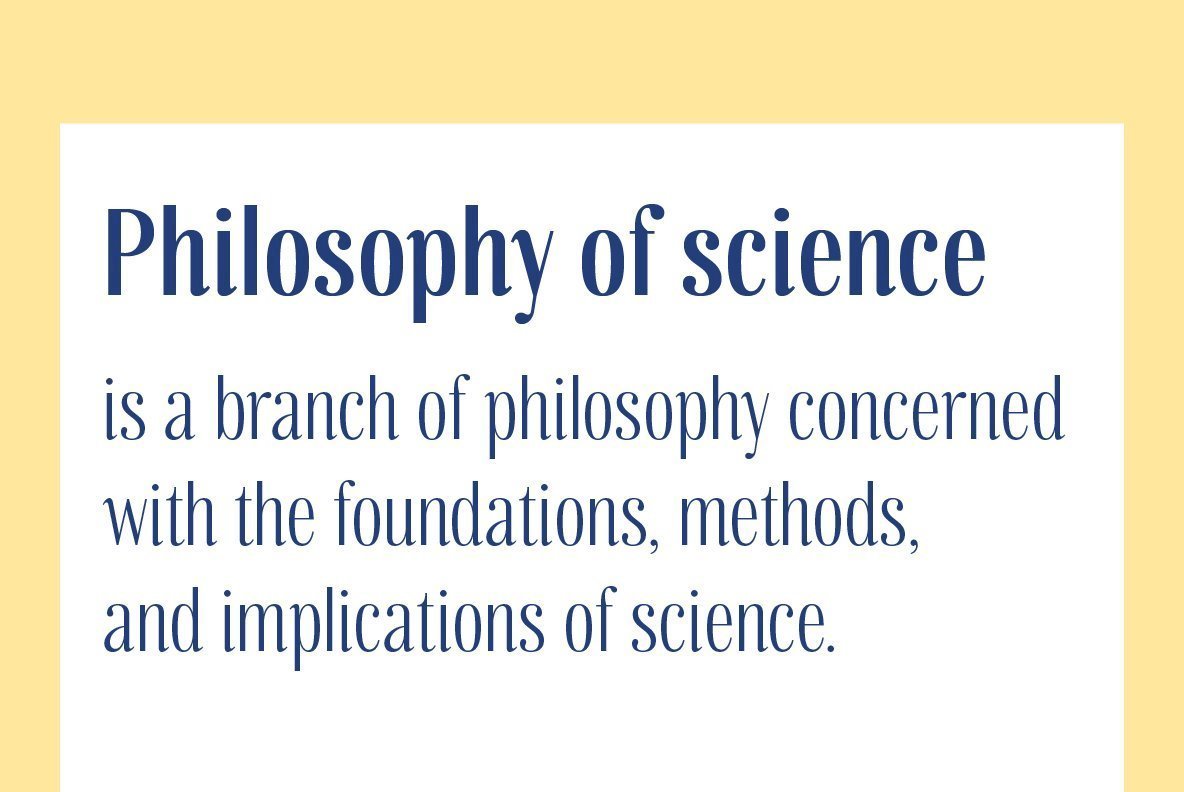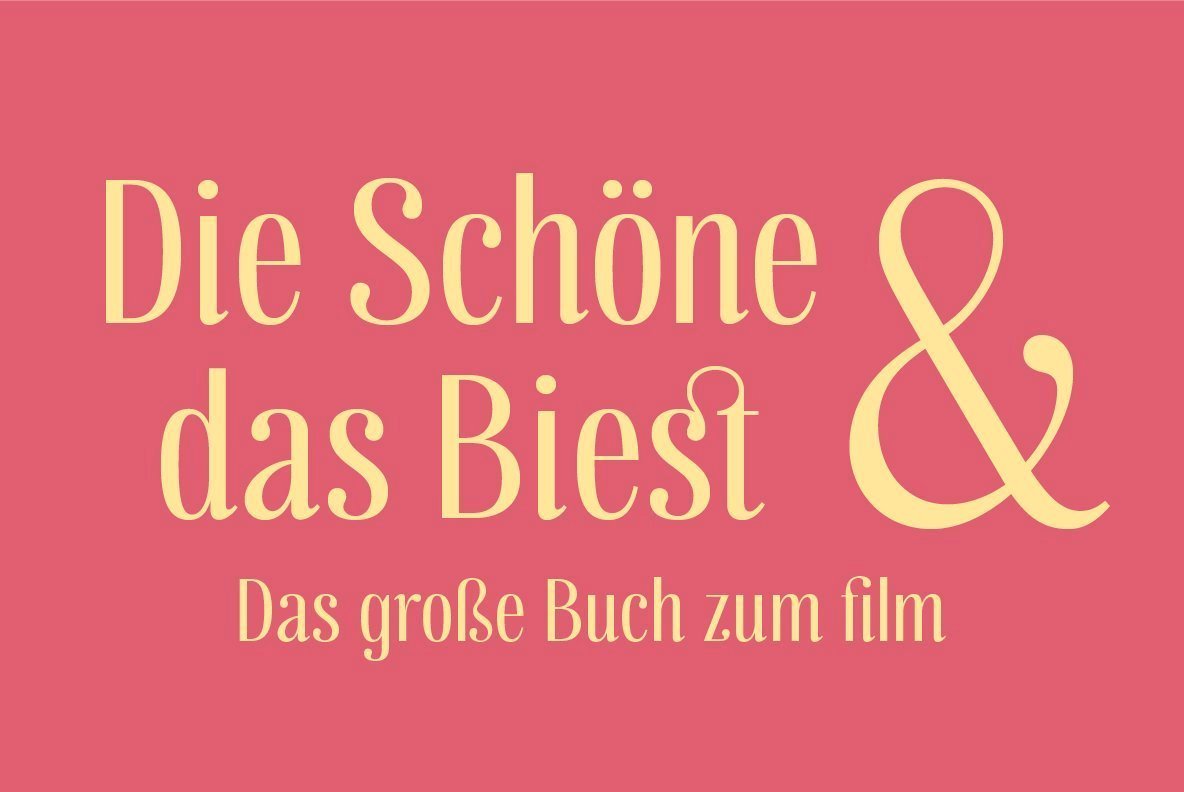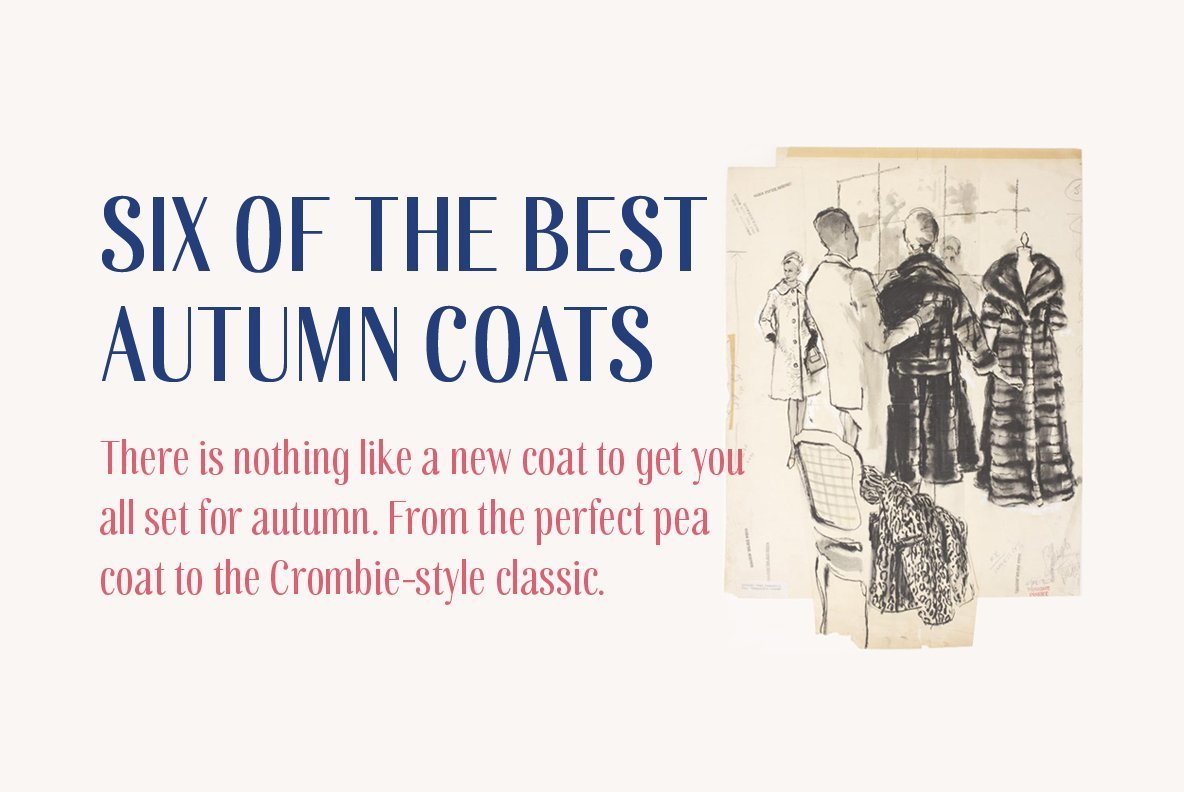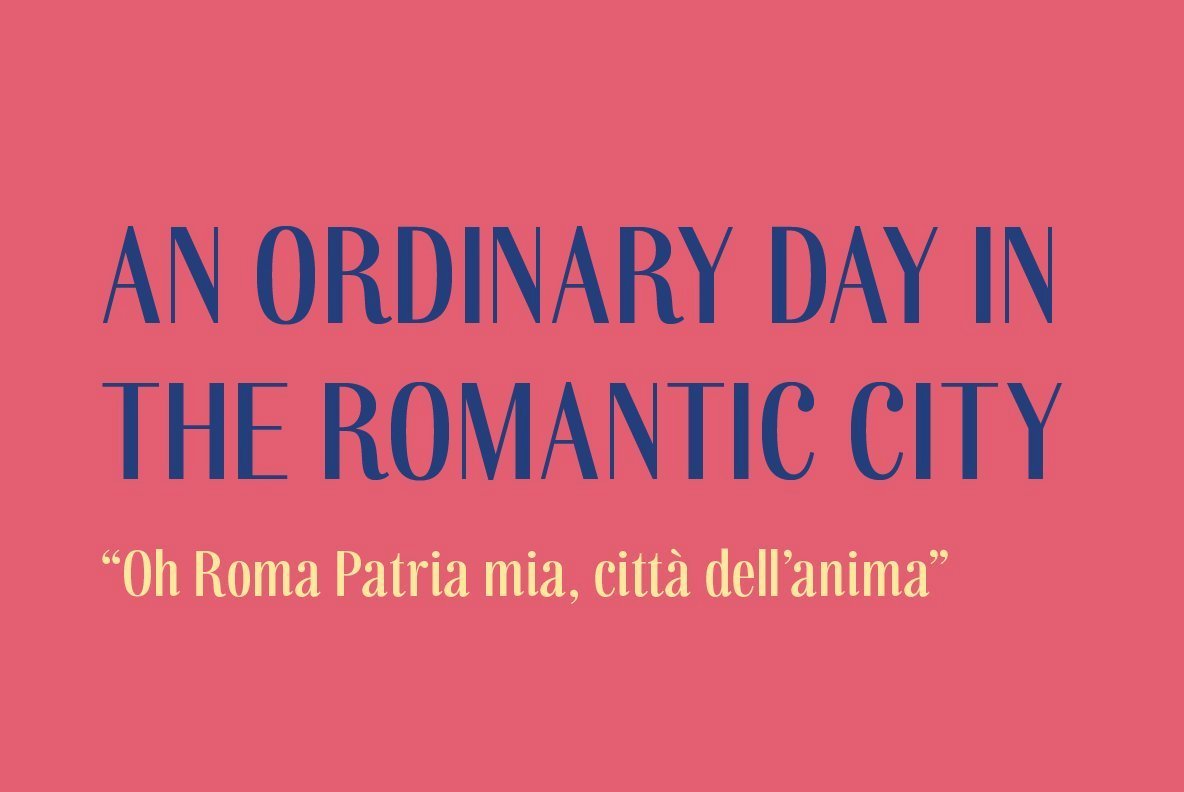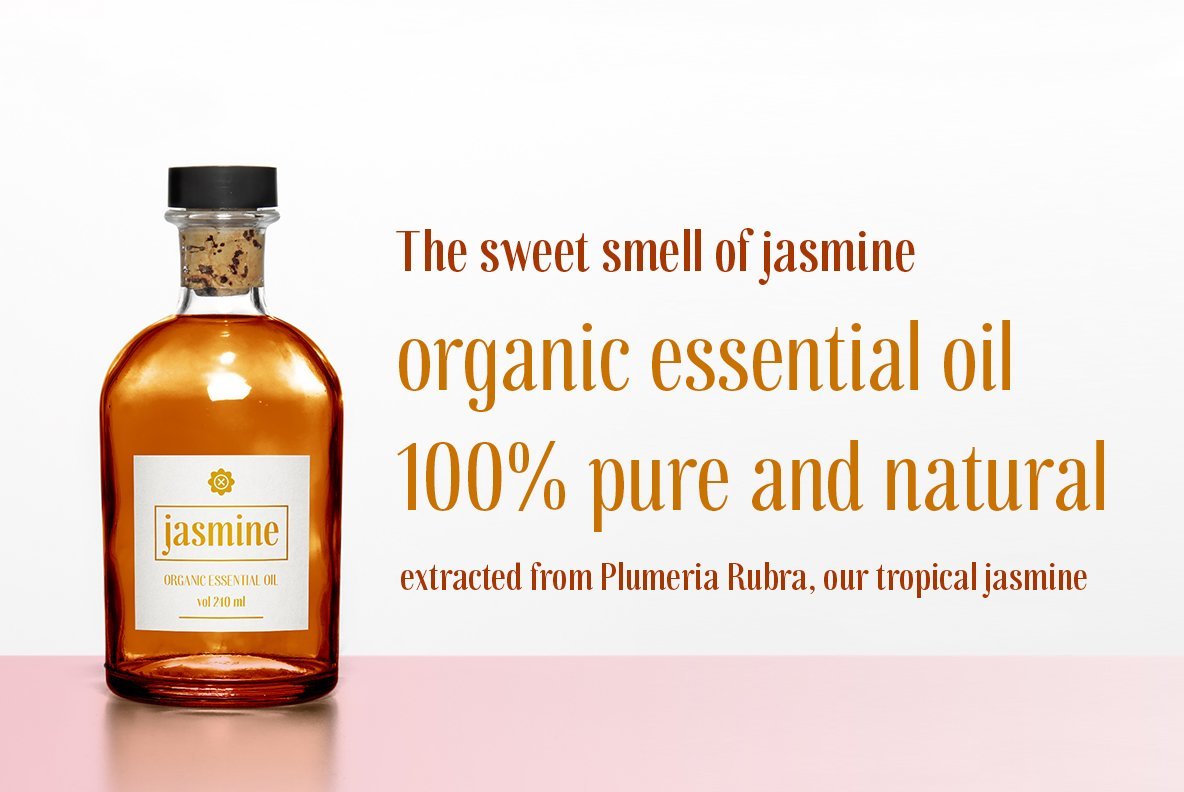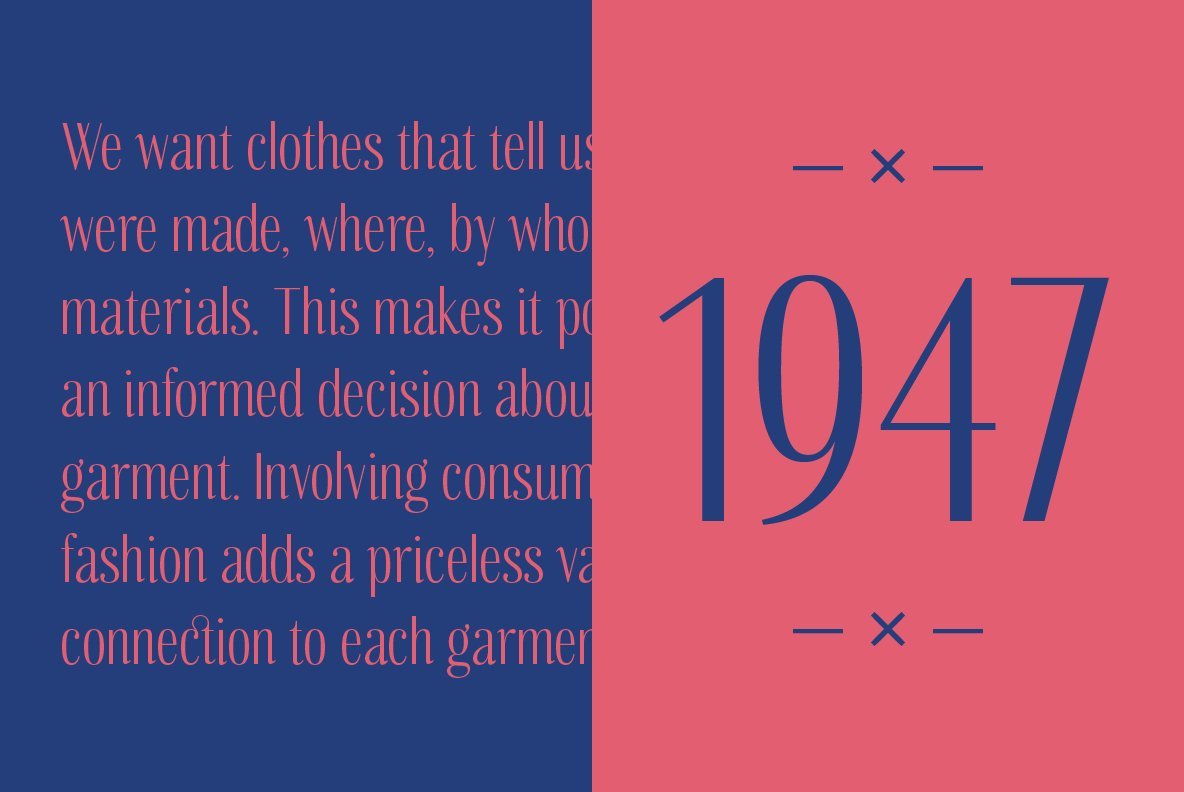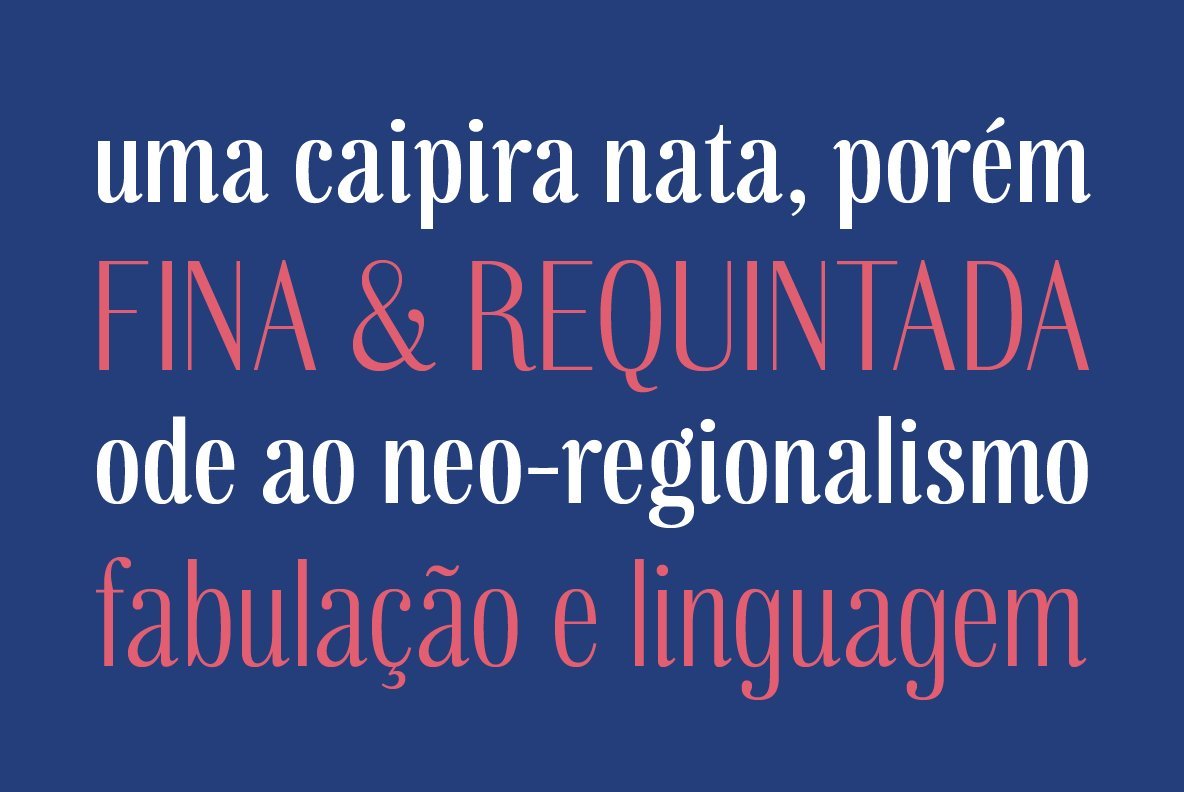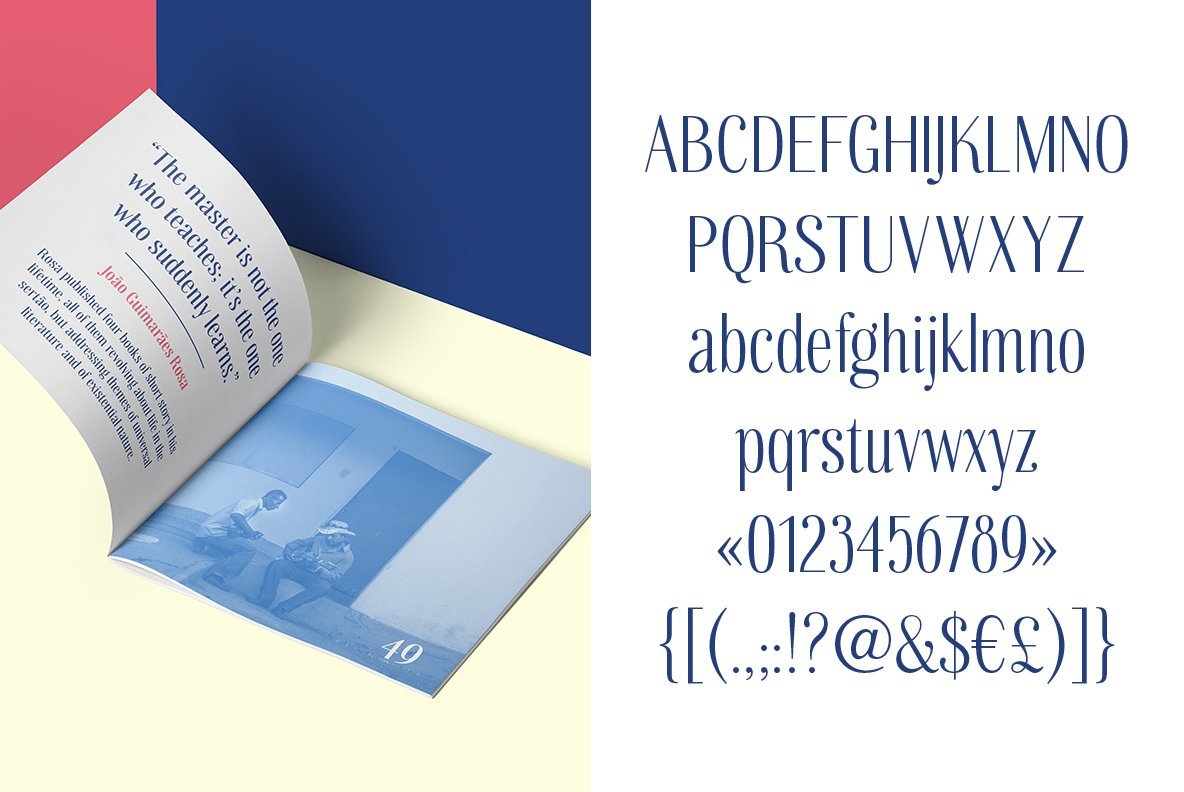
Sagarana Font
Sagarana is an elegant display typeface rooted in the style of romantic or didones letterforms, however, it is a sans serif with a cleaner appearance. The contrast and the vertical stress maintain the modern style, while the terminals, the finials, the proportions and the narrow look enhance its stylish personality.
It could be suitable for editorial projects such as magazines, books or even for sophisticated environments, let’s say, fashion, department store, perfumes, cosmetics and so on.
Sagarana was initially inspired by a Brazilian book cover from 50’s. The name itself combines the words “saga” (as in the English sense of “story”) and “rana,” a Tupi (Indigenous language) word that roughly means “showing similarities”.